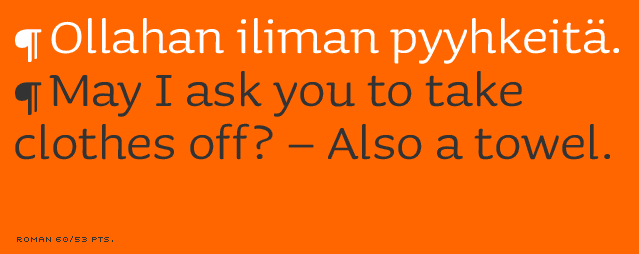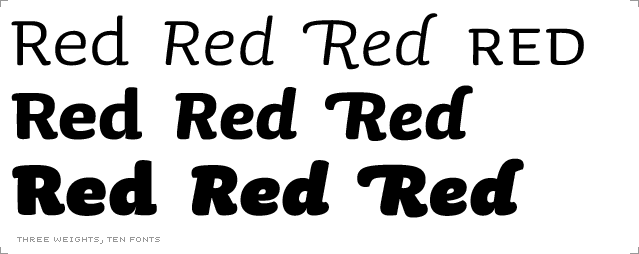
Sauna radiates warmth and comfort with a contemporary flair.
The family consists of regular, bold and black weights. The regular and bold weights are designed to complement each other in all type sizes from fine print to display settings. The regular weight is equipped with small caps. The black weight is specifically designed for larger display sizes.
For each weight there are two italics: the normal italic and a swash italic. The regular italic is formal and stable while the swash italic is more outgoing and festive. Especially these swash italic fonts are equipped with a whole bunch of fancy ligatures like Th, ct, fh, st and many others.
But wait - there’s more! Sauna Dingbats add colour for your typography. The timely Dingbat fonts contain 26 illustrations which can be used either as plain black and white illustrations, or as layered, multi-coloured line-art.
The Sauna package of 10 text fonts & 1 dingbat font provide a flexible range for a wide variety of text and display settings.